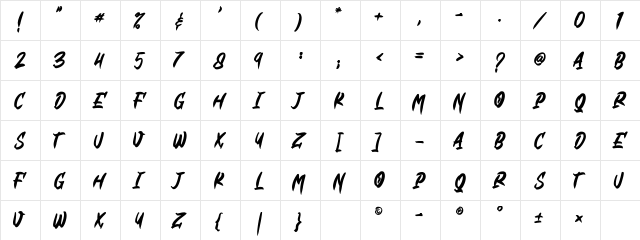
Black & Blue Rough
| Style | Rough |
| Designer | Omotu Studio |
Design Context for Black & Blue Typeface
Black & Blue embraces imperfection — its rough, textured character adds raw authenticity to designs that want to feel lived-in and unconventional.
A strong fit for alternative music projects, graffiti-adjacent design, and anything that deliberately resists polish.
Pro Tip: Use Black & Blue at larger sizes where the texture and irregularity of each letterform can be clearly seen — it loses its character at small sizes.